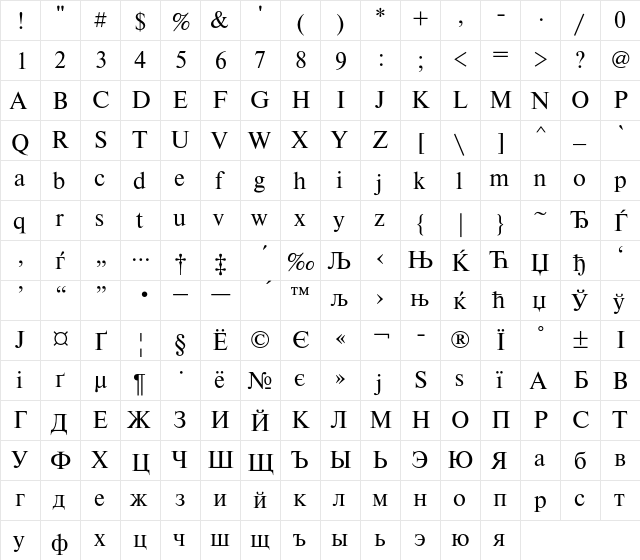
NewtonC Regular
Design Context for NewtonC Typeface
NewtonC takes a measured approach to typography — its balanced proportions and neutral character make it a reliable workhorse for both digital and print work.